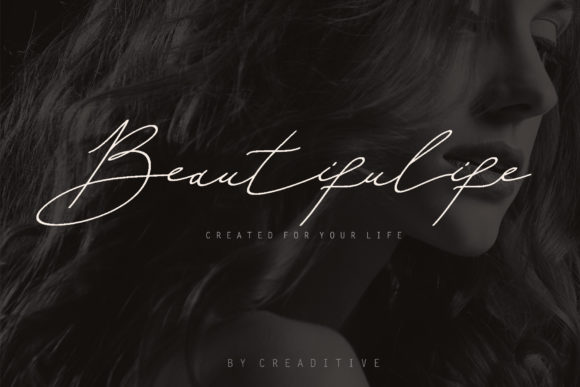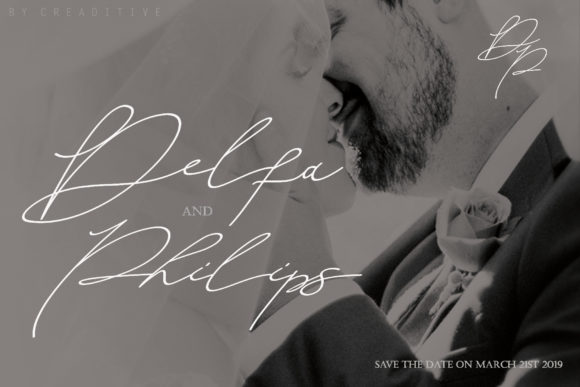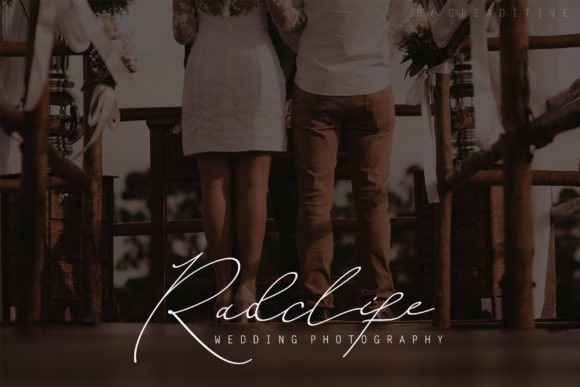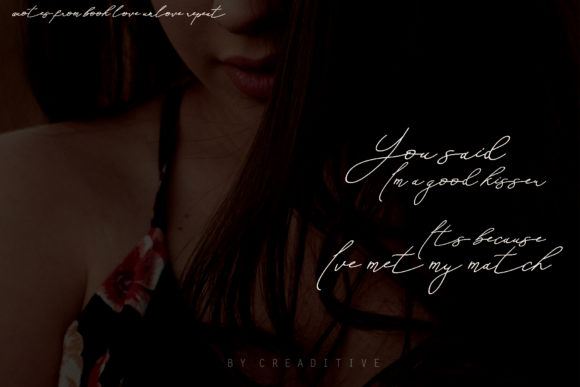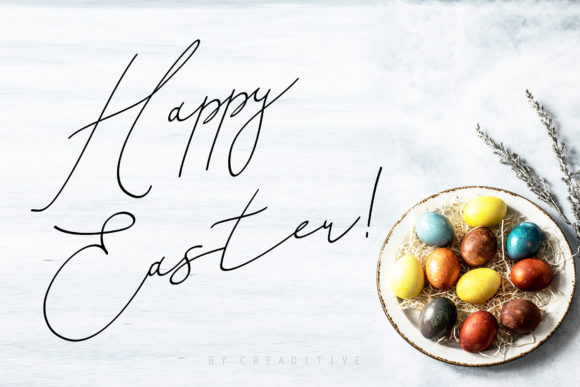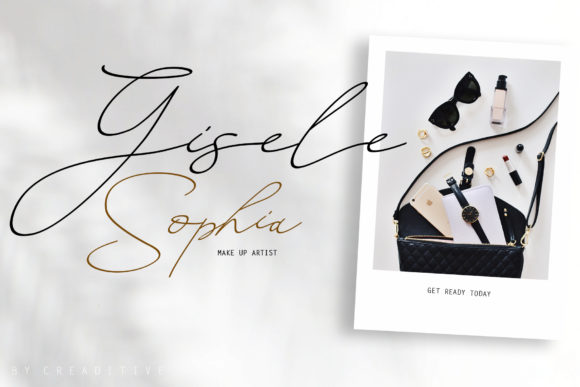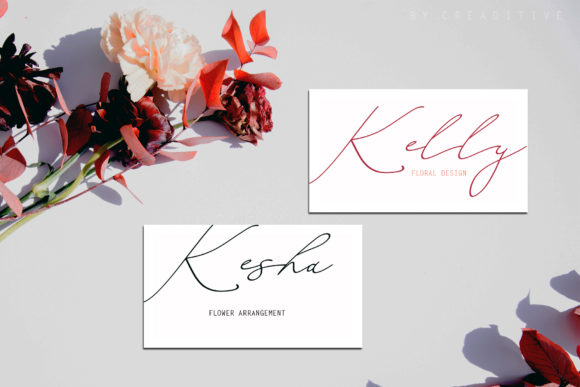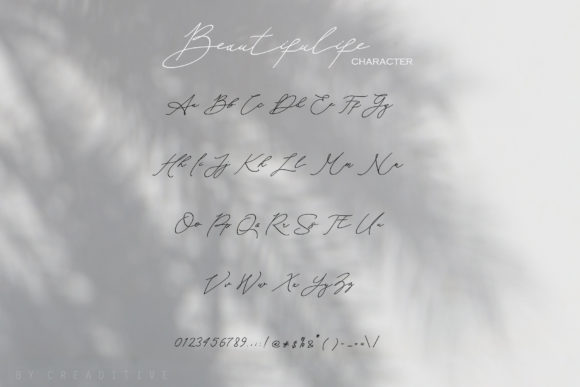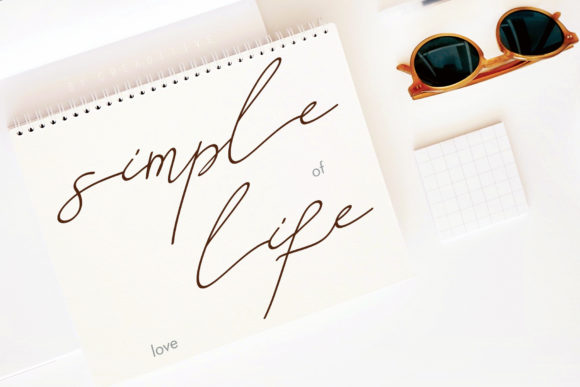
Beautifulife Font
About Beautifulife Font
Beautifulife is a fresh and unique handmade script font with a bold touch. With it’s dynamic elements, it will add a personal touch to any design.